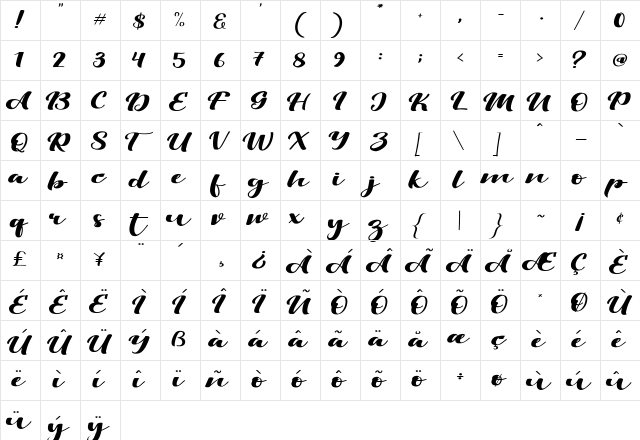
Viksi Script Regular
| Foundry | Khurasan |
| Designer | Khurasan |
Design Context for Viksi Script Typeface
Viksi Script brings a calligraphic fluidity to the page — its connecting strokes and expressive curves give it an unmistakably human quality.